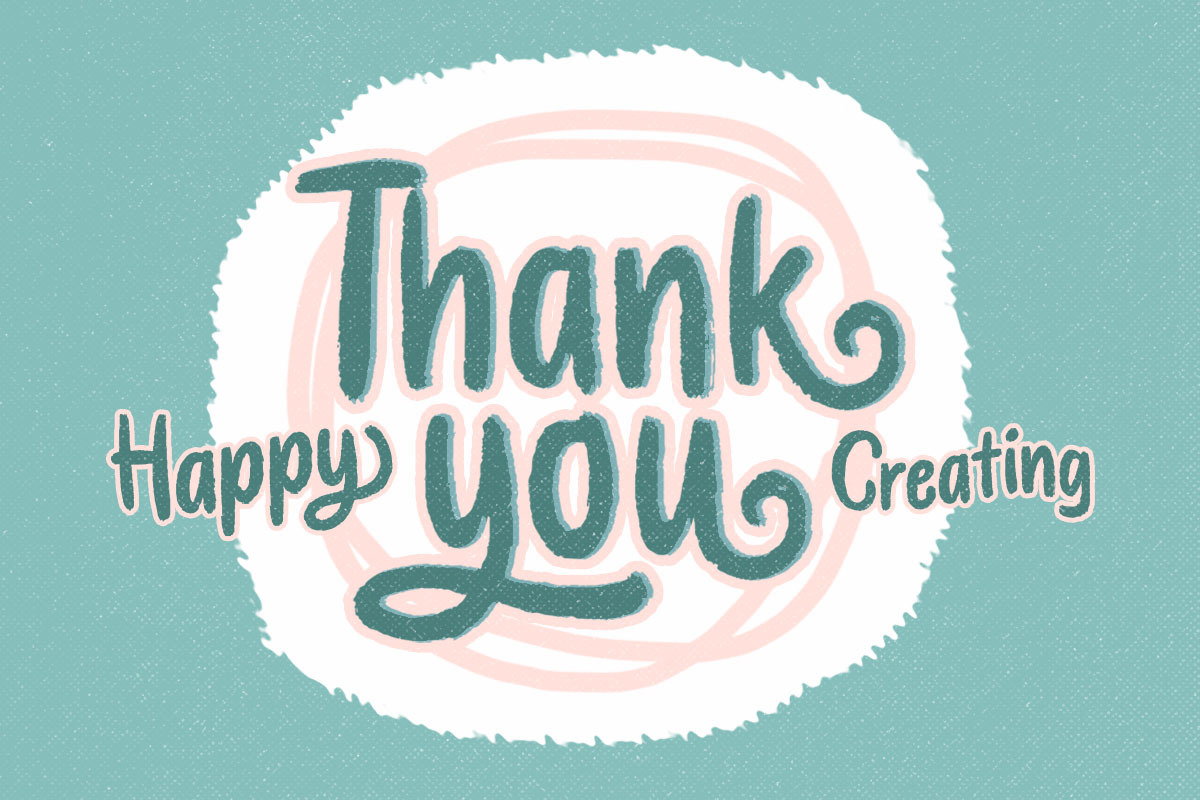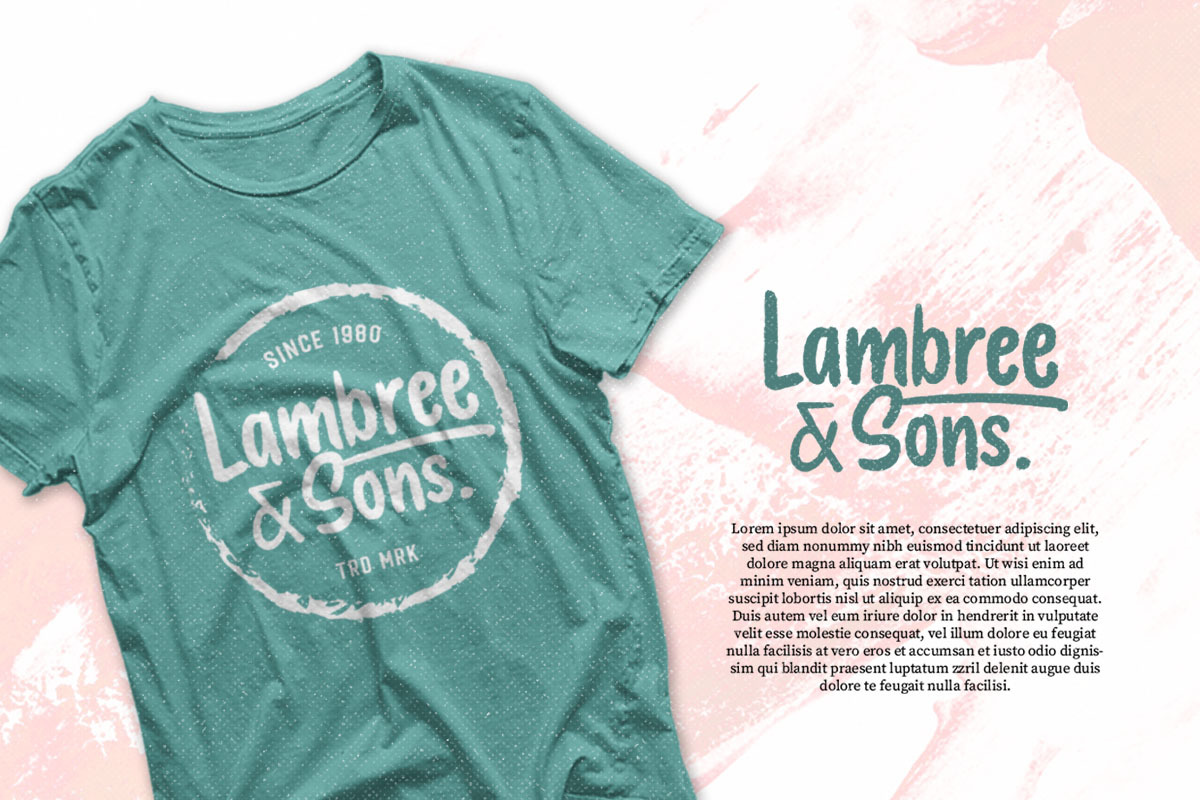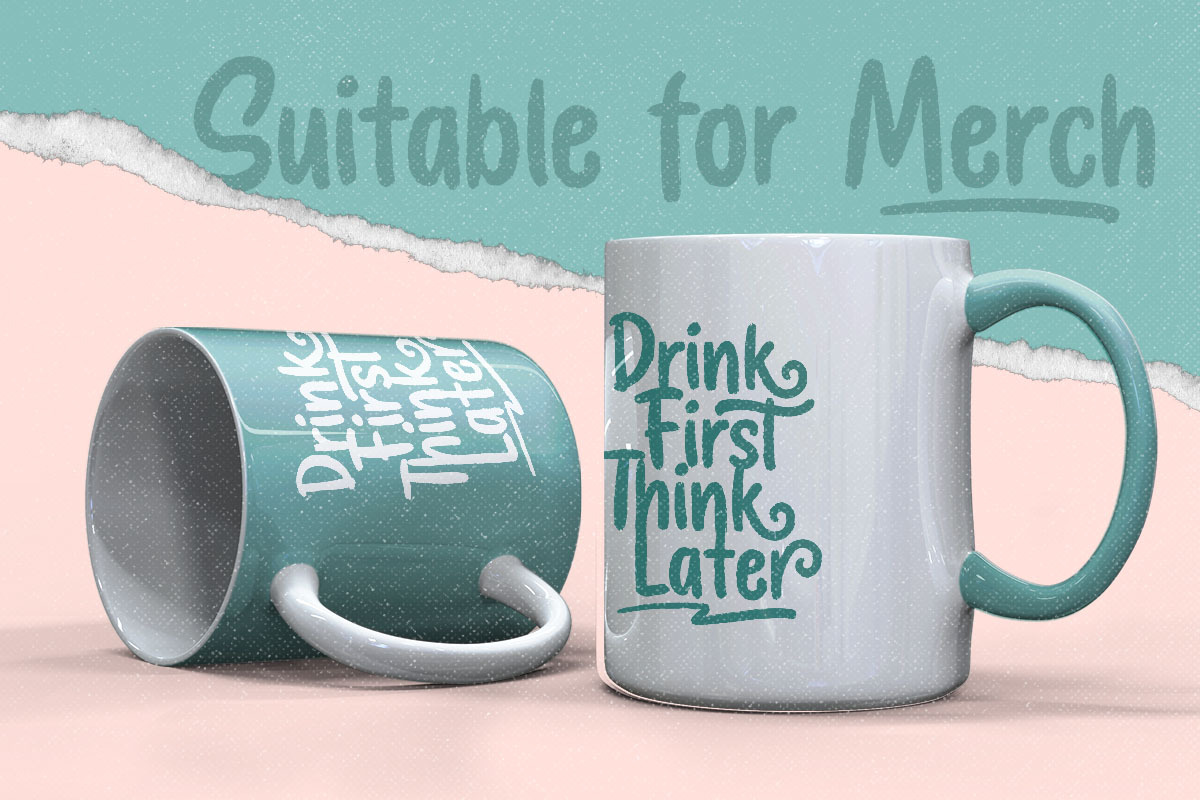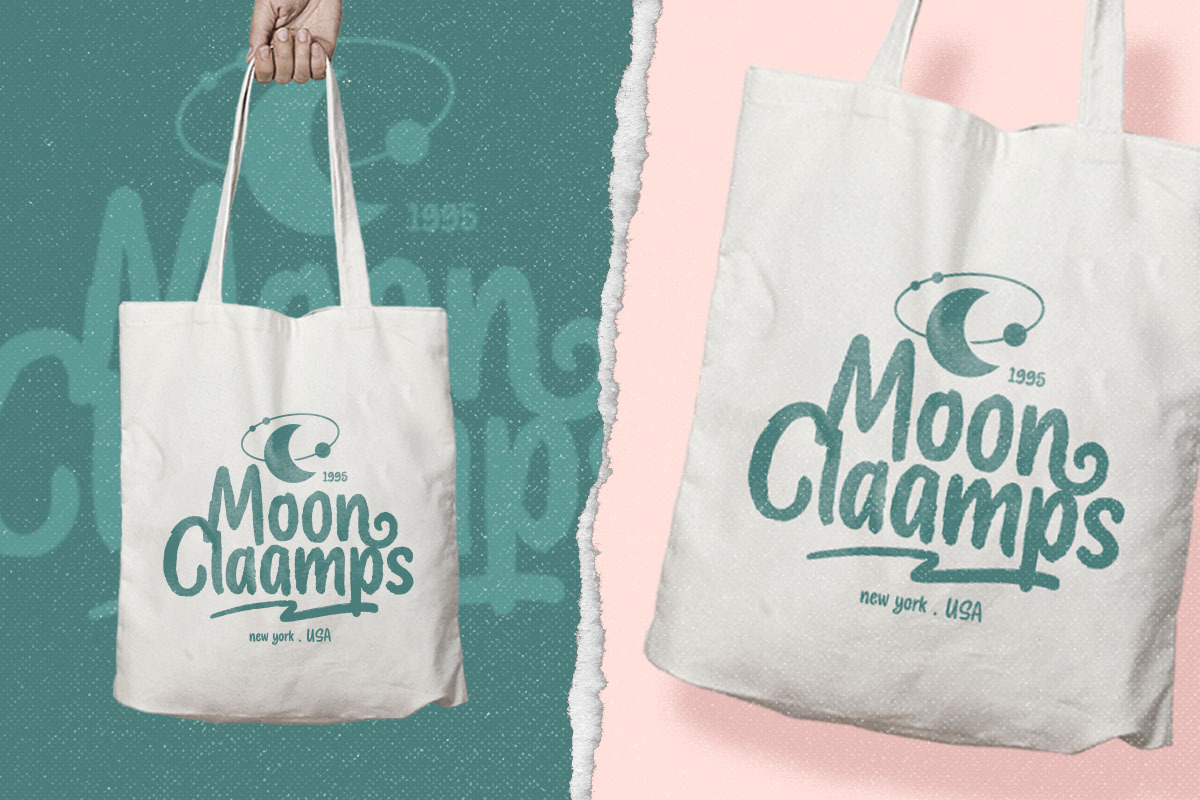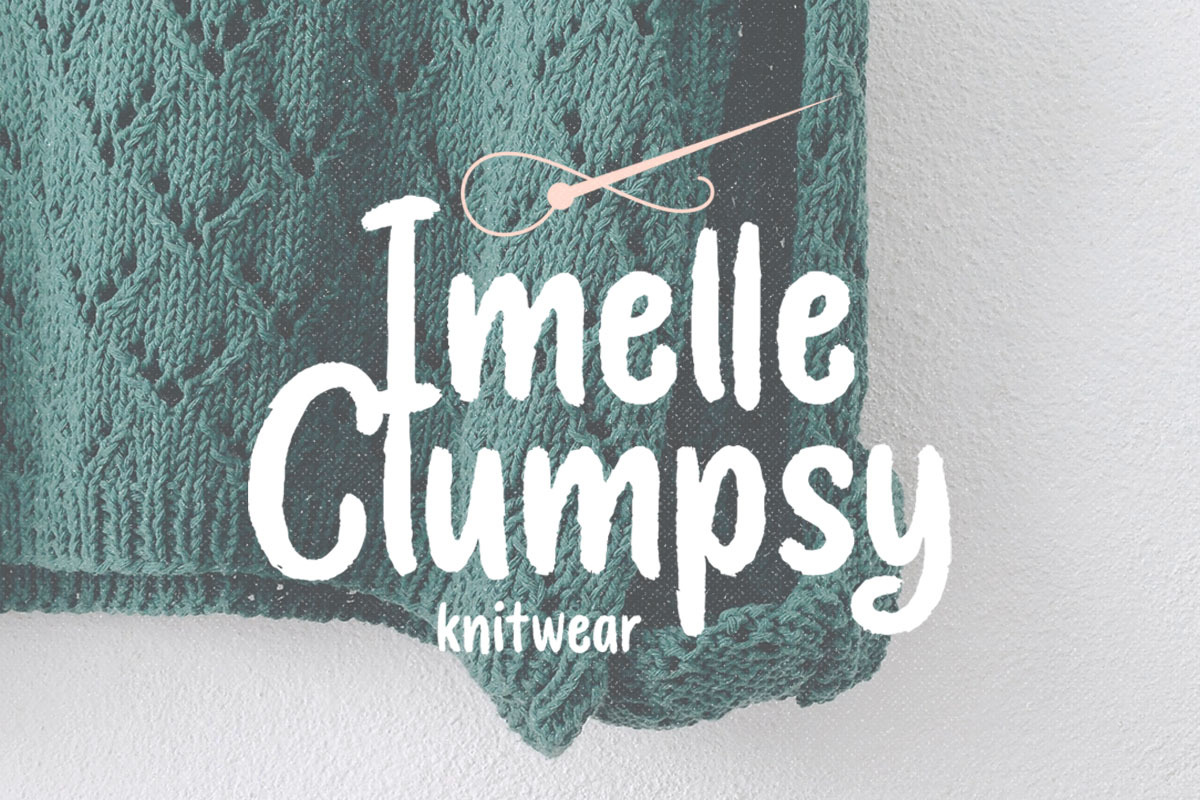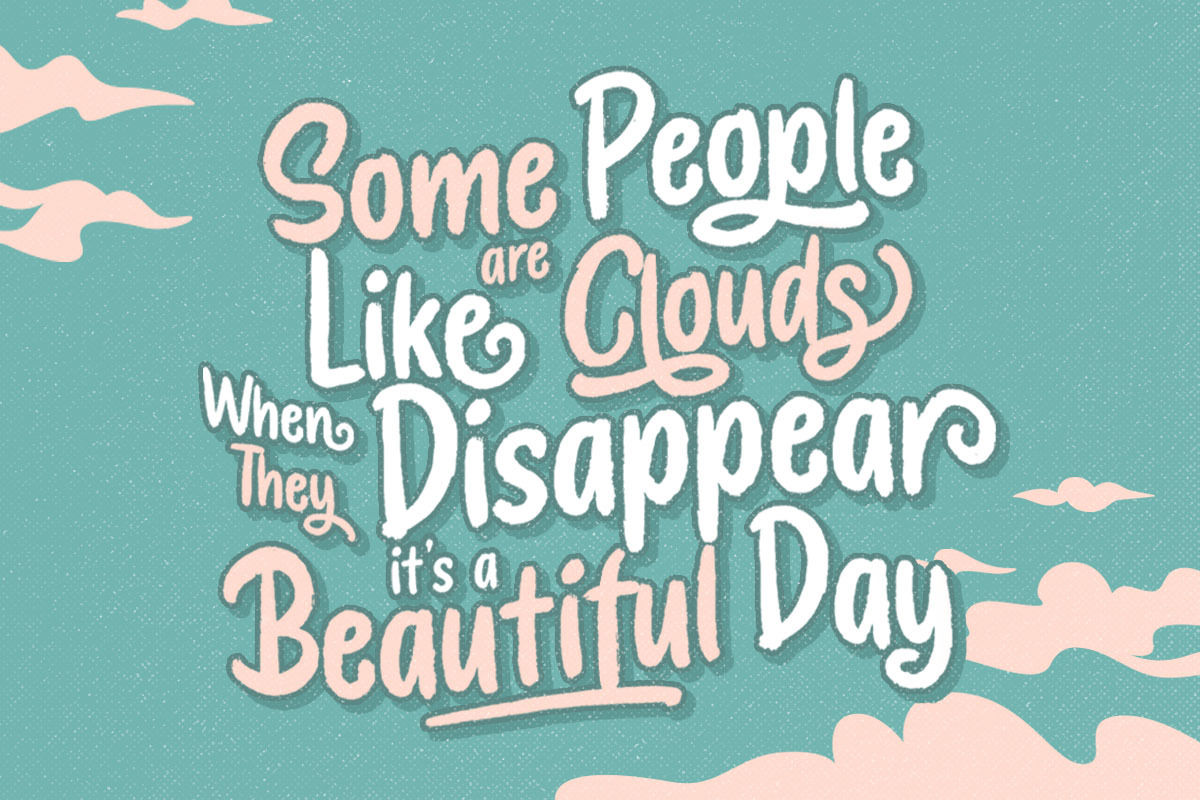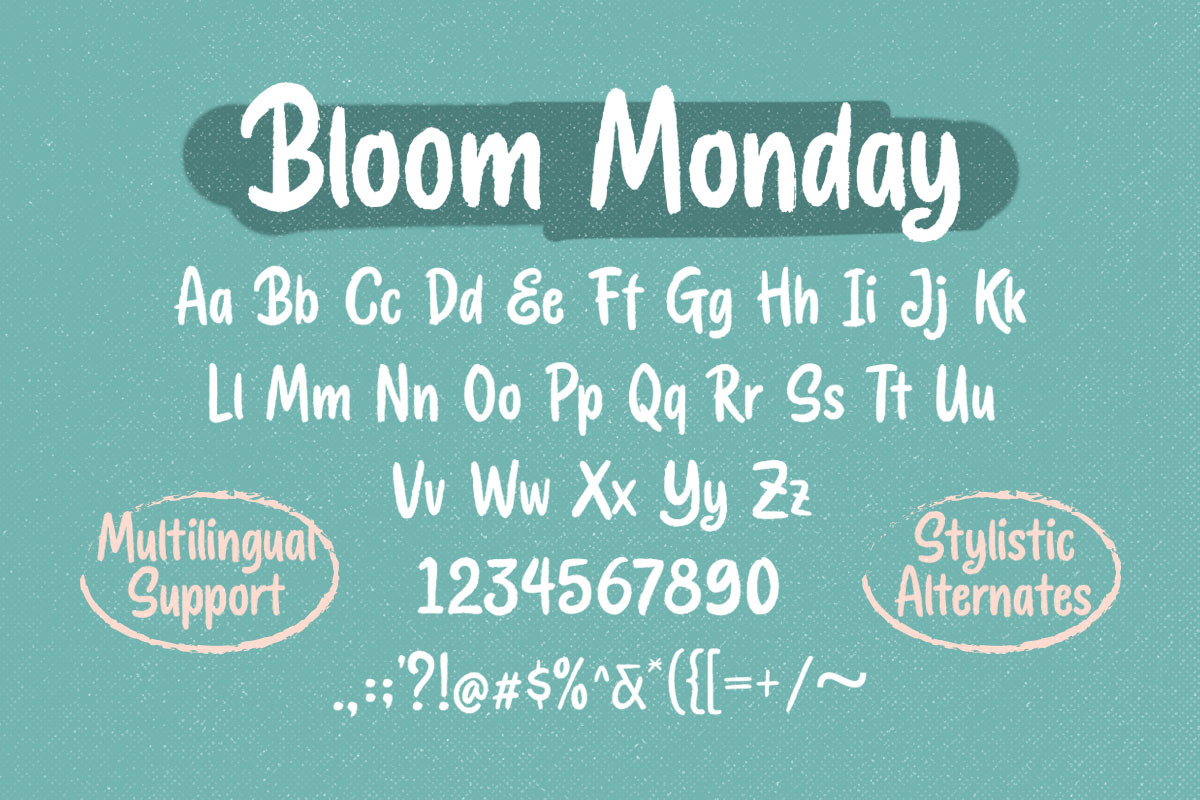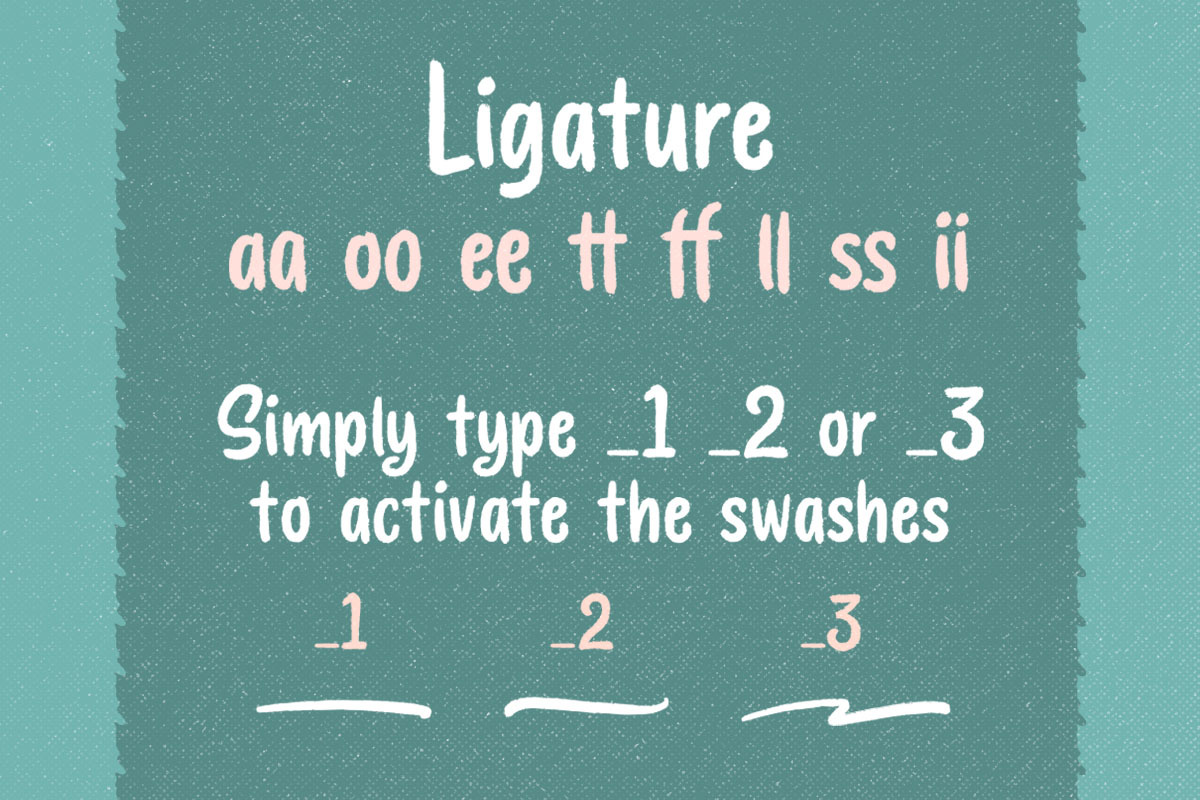
Bloom Monday - Rough Script
Bloom Monday is a retro bold script with a touch of vintage look and feel. The swashes makes this font looks great for retro lettering which you can create in a sec! This type of font perfectly made to be applied especially in logo, headline, signage and the other various formal forms such as invitations, labels, logos, magazines, books, greeting / wedding cards, packaging, fashion, make up, stationery, novels, labels or any type of advertising purpose.
- alternates / swashes and ligatures